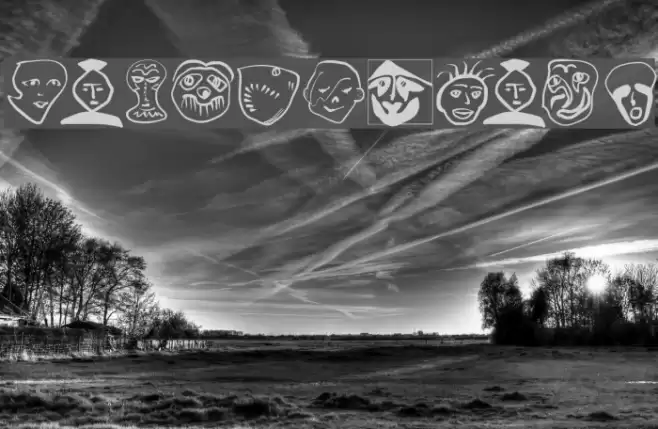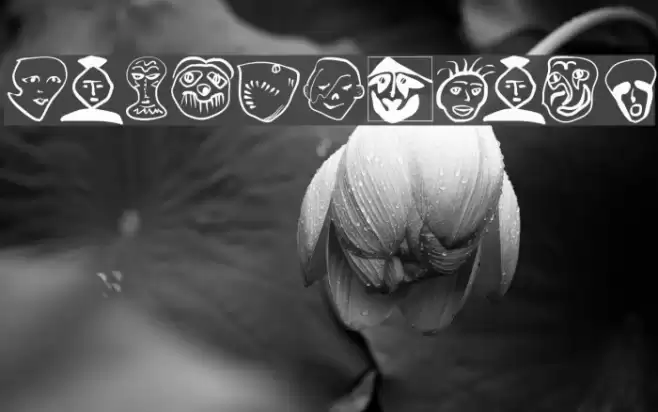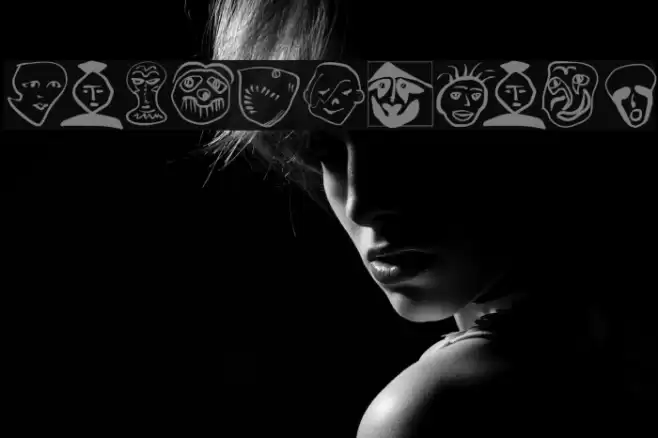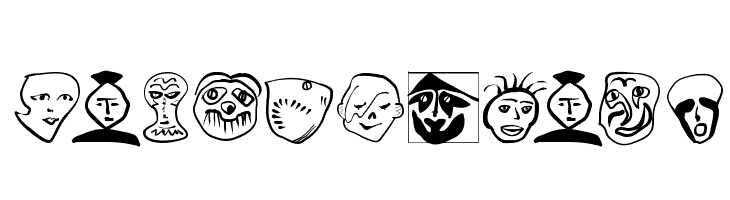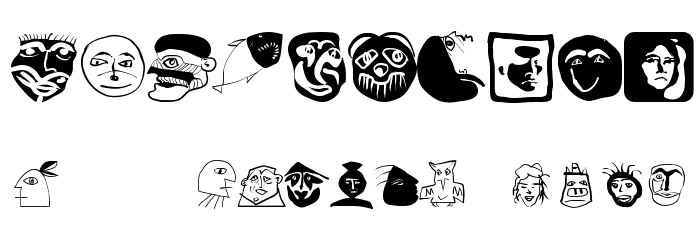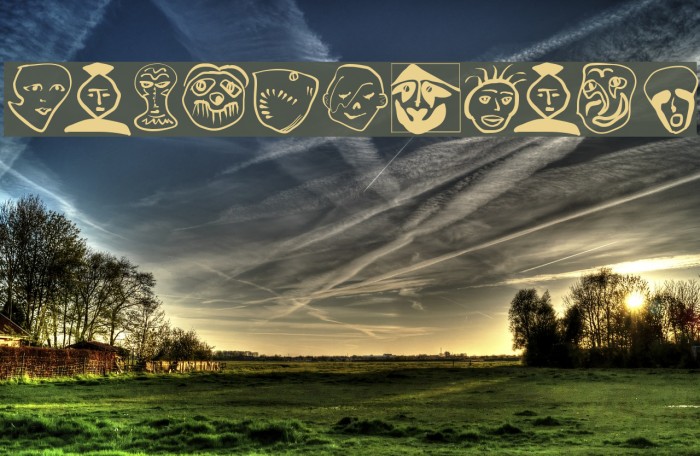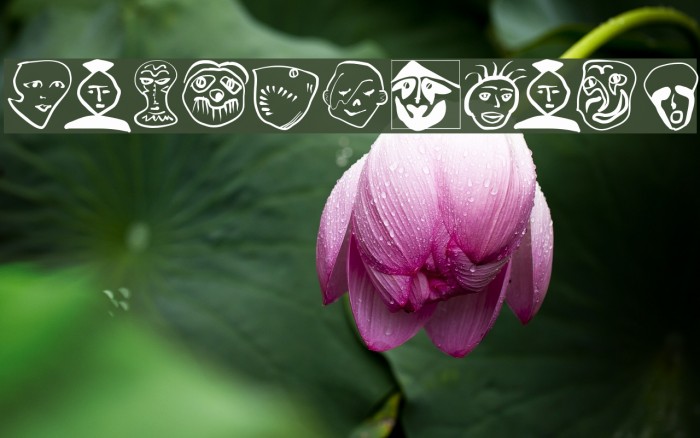
Wacomedians Font
Wacomedians Description
A highly decorative and playful font composed entirely of unique hand-drawn faces and abstract characters, each glyph featuring a different expressive illustration. The style is whimsical, artistic, and non-uniform, with a strong emphasis on individuality and creativity in each letterform.
Expressive, hand-drawn font made of illustrated faces and abstract characters from Uncategorized fonts.
- Proposed Projects: Children’s books, art posters, creative branding, event invitations, album covers, editorial illustrations.
- Overall Style: Decorative, Artistic, Whimsical
- Use Case: Logos, Posters, Headlines, Artistic projects